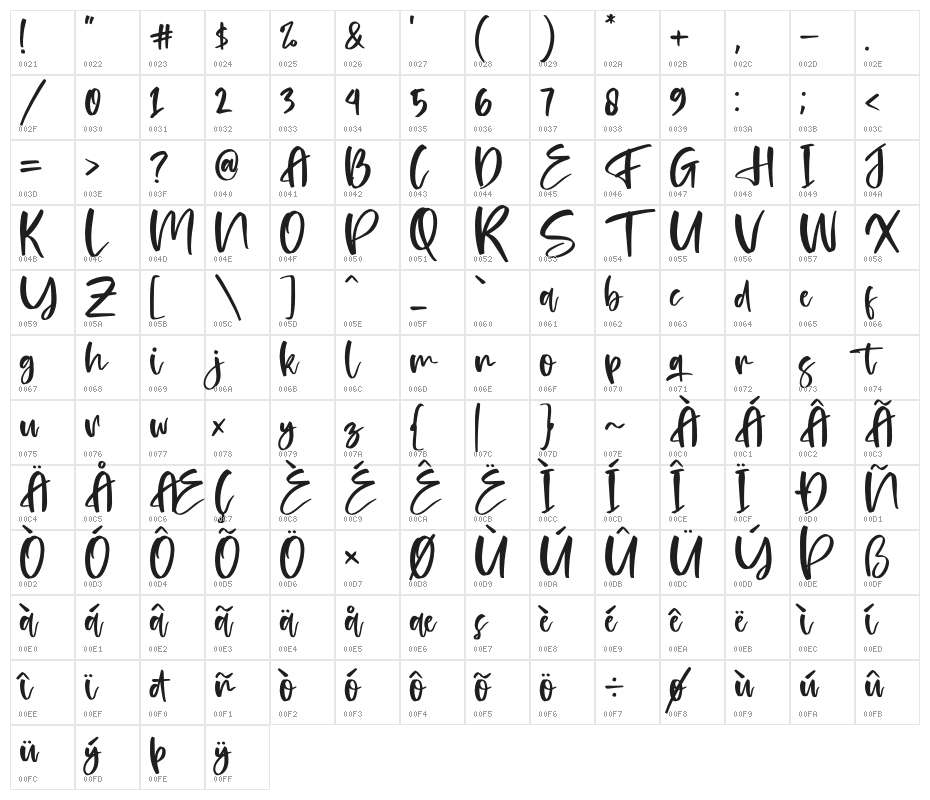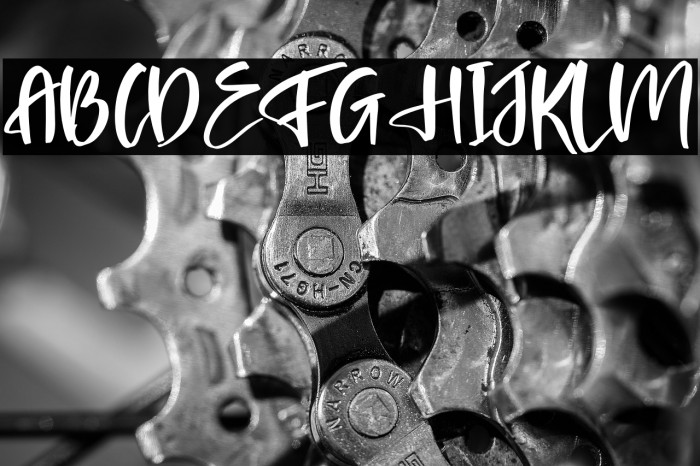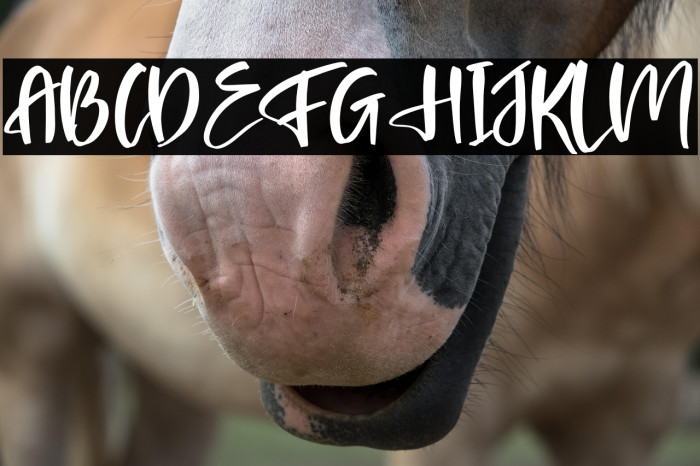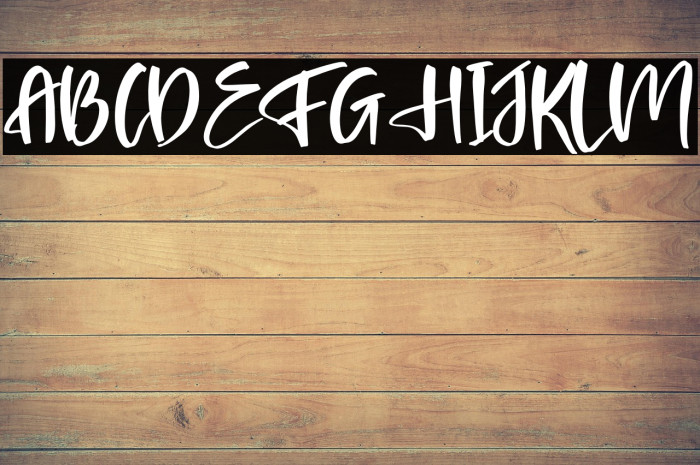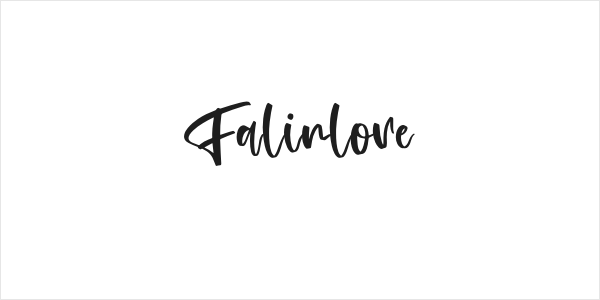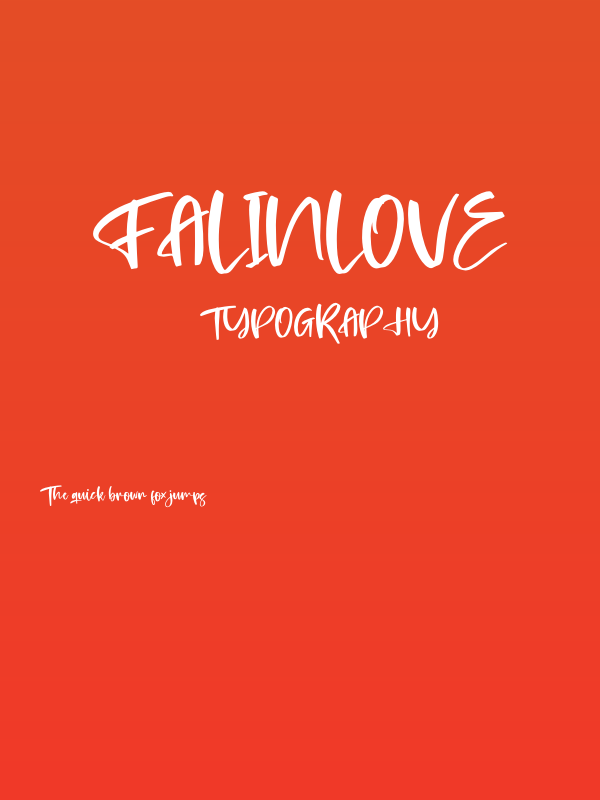
Falinlove Font
Falinlove Description
This font features a lively and expressive handwritten style, characterized by its bold and fluid strokes. The letters are crafted with a natural flow, giving a sense of movement and energy. The uppercase letters are slightly more structured, while the lowercase letters exhibit a more casual and relaxed appearance. The numbers and special characters maintain the same energetic style, ensuring consistency throughout. This font's playful and dynamic nature makes it ideal for projects that require a personal touch.
| Use Case | Logos, Headlines, Creative projects |
| Proposed Projects | Ideal for greeting cards, invitations, personal branding, and creative social media graphics. |